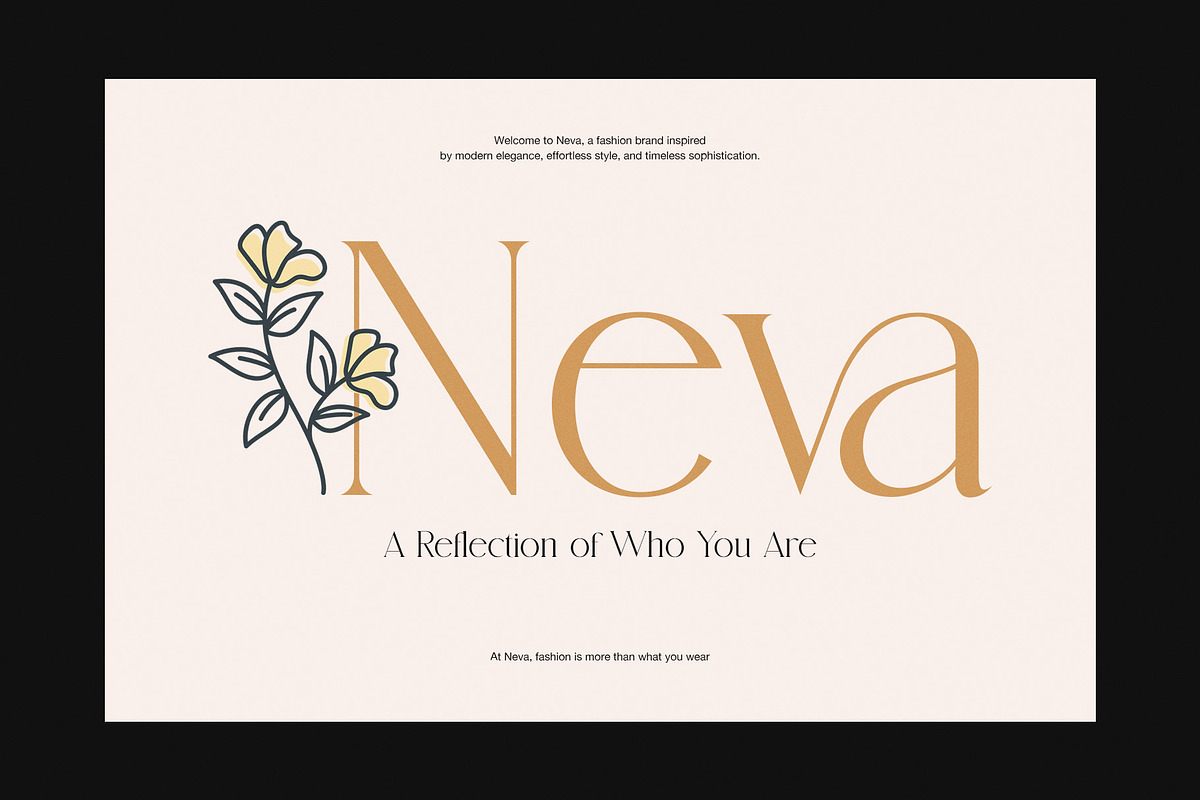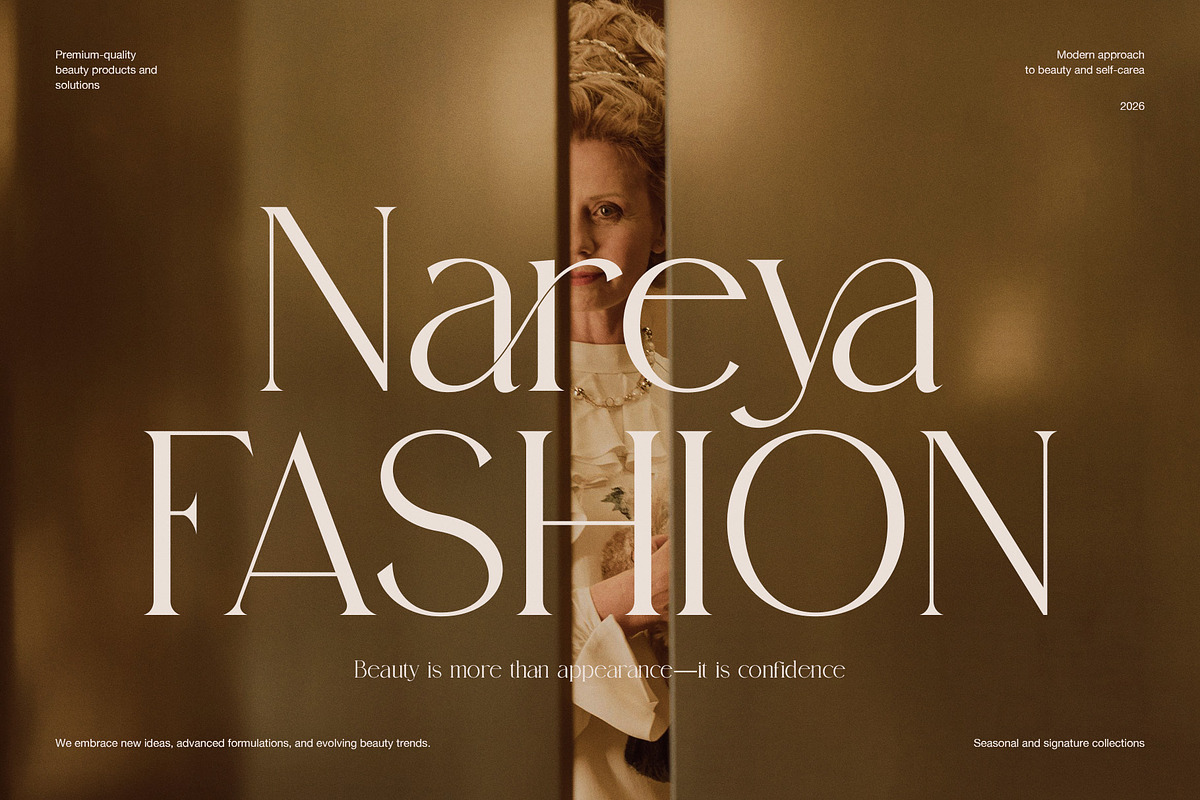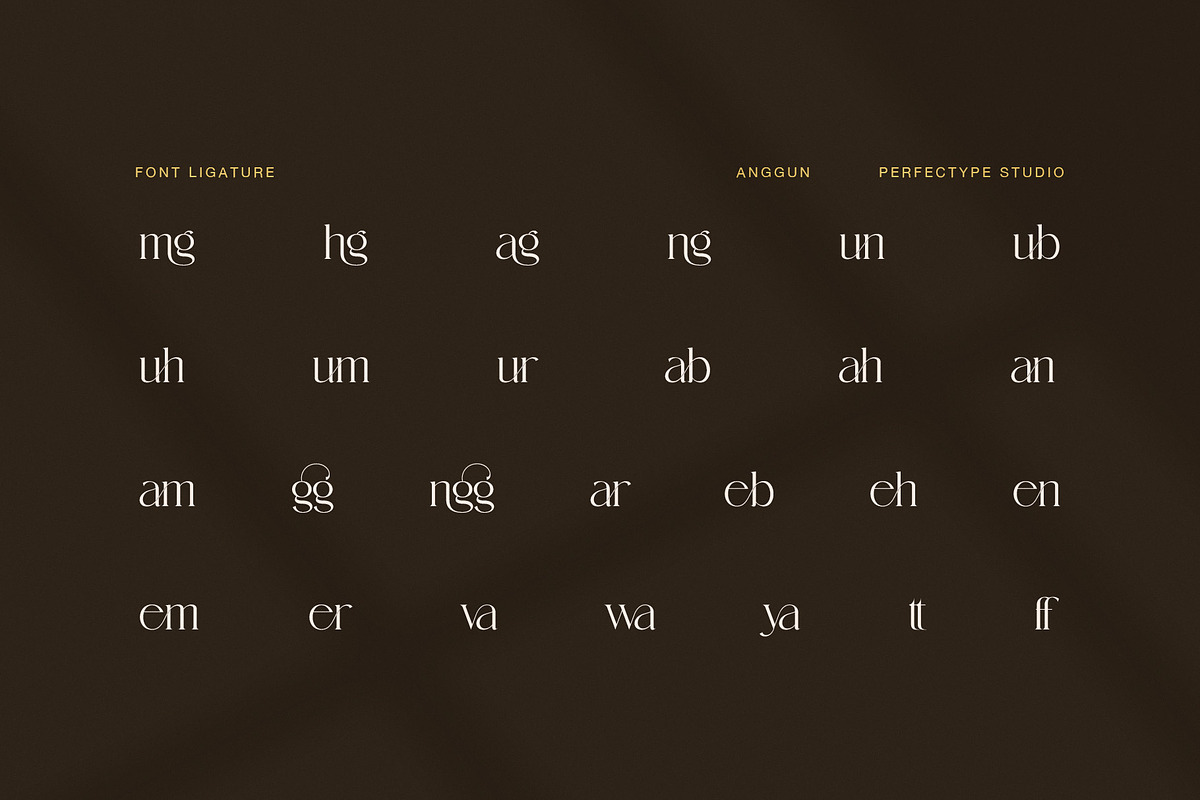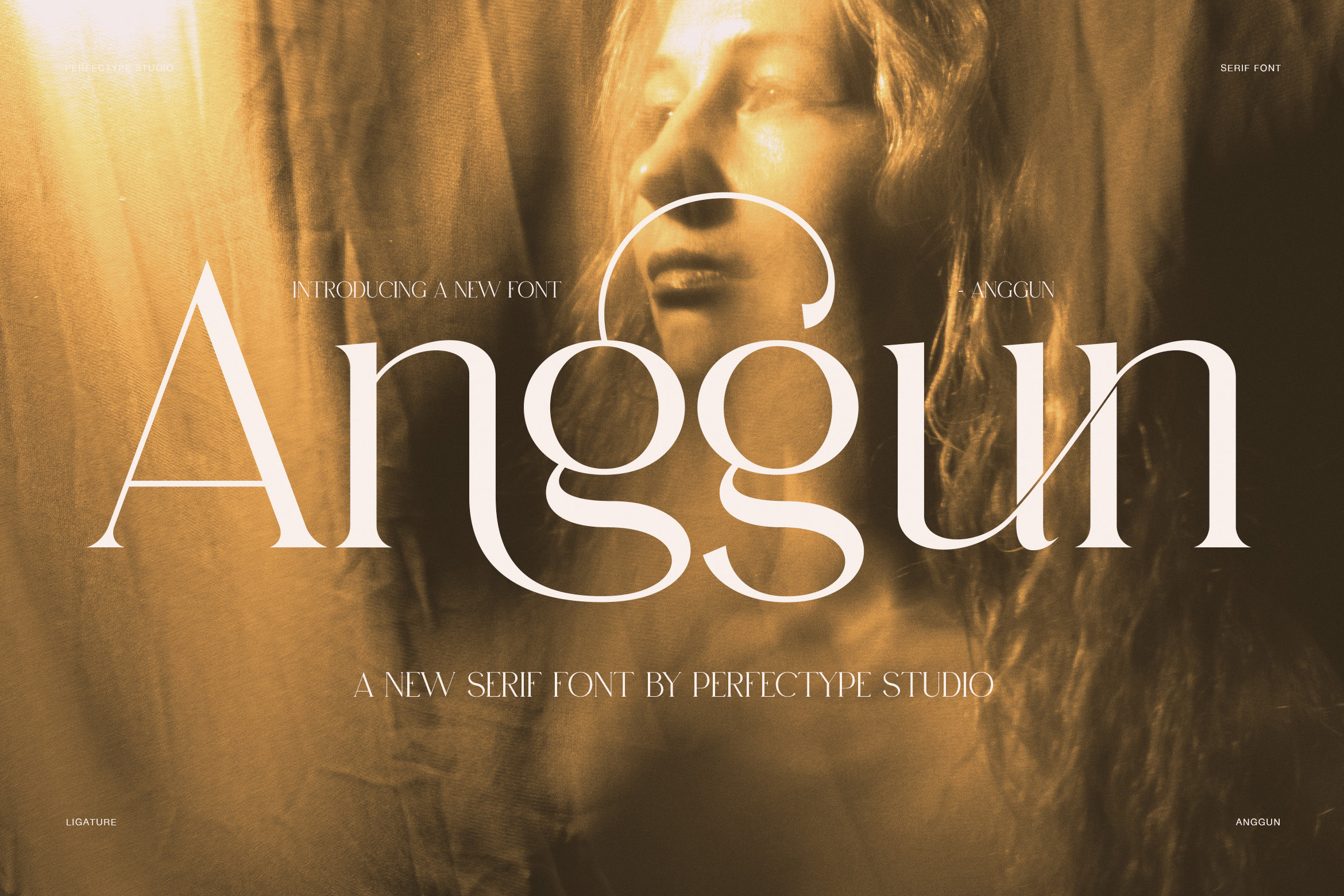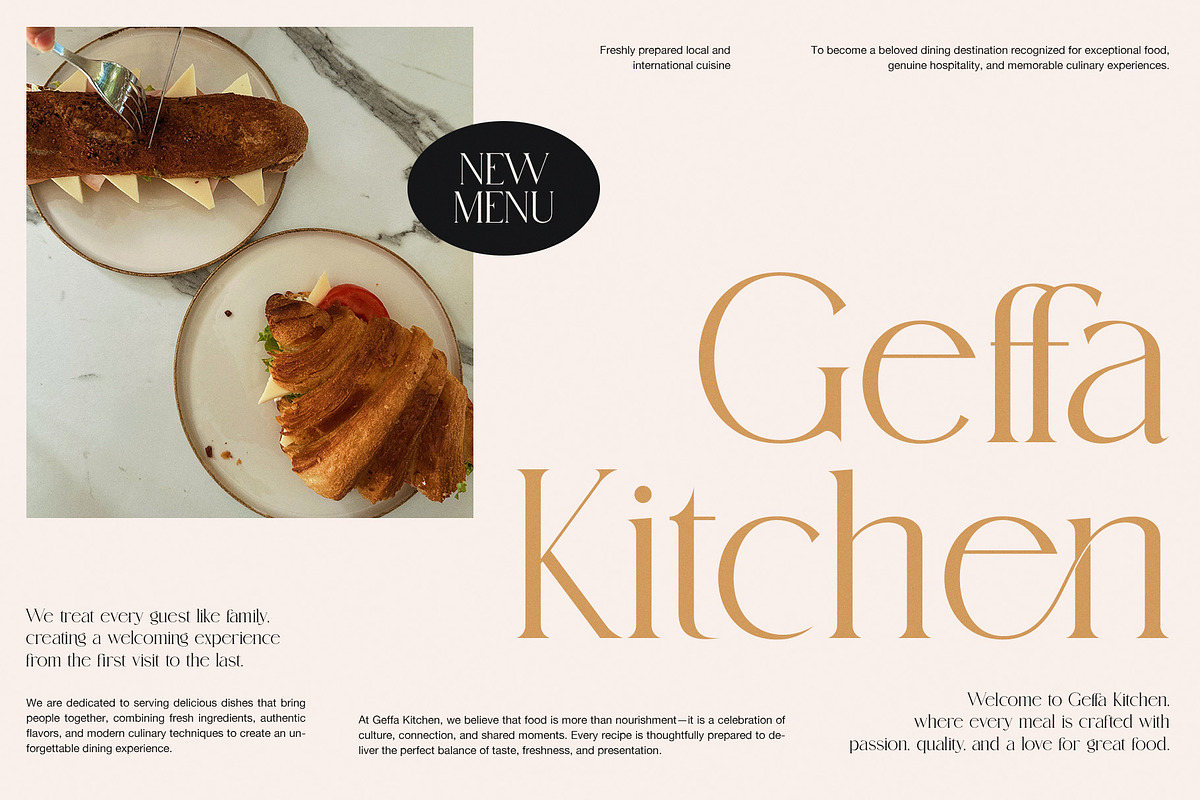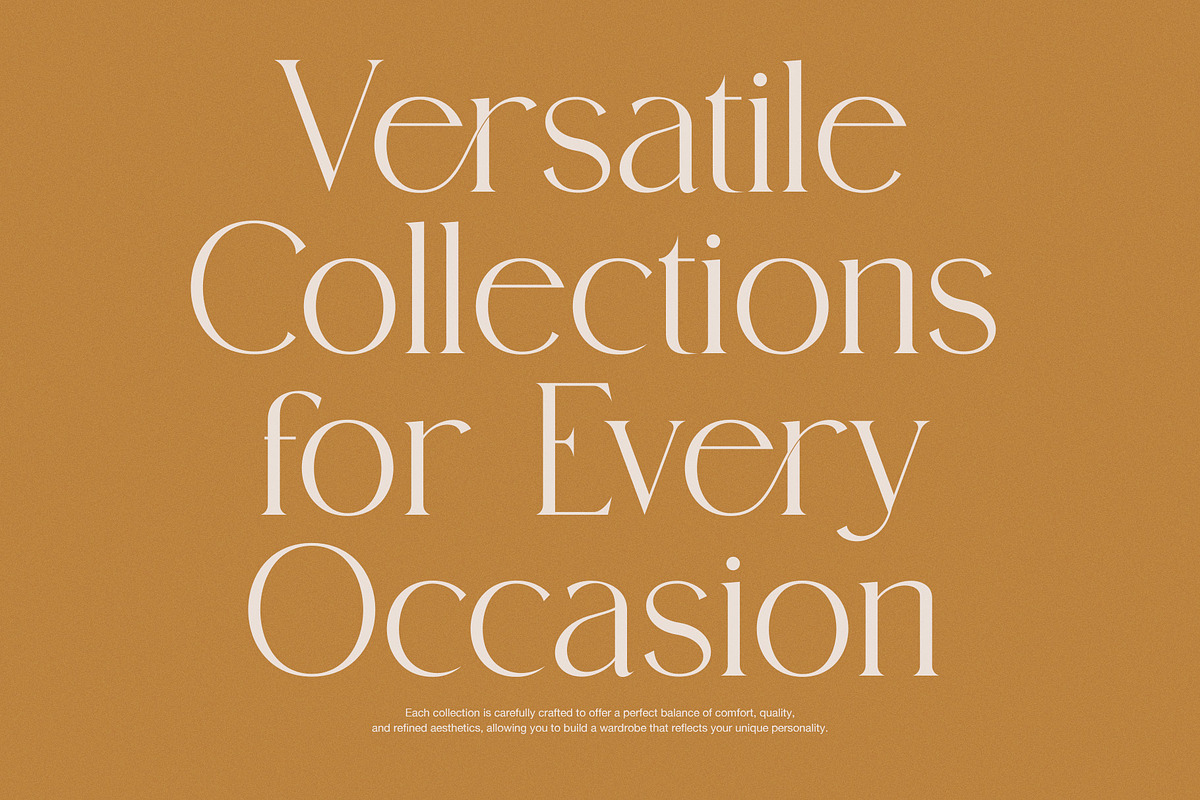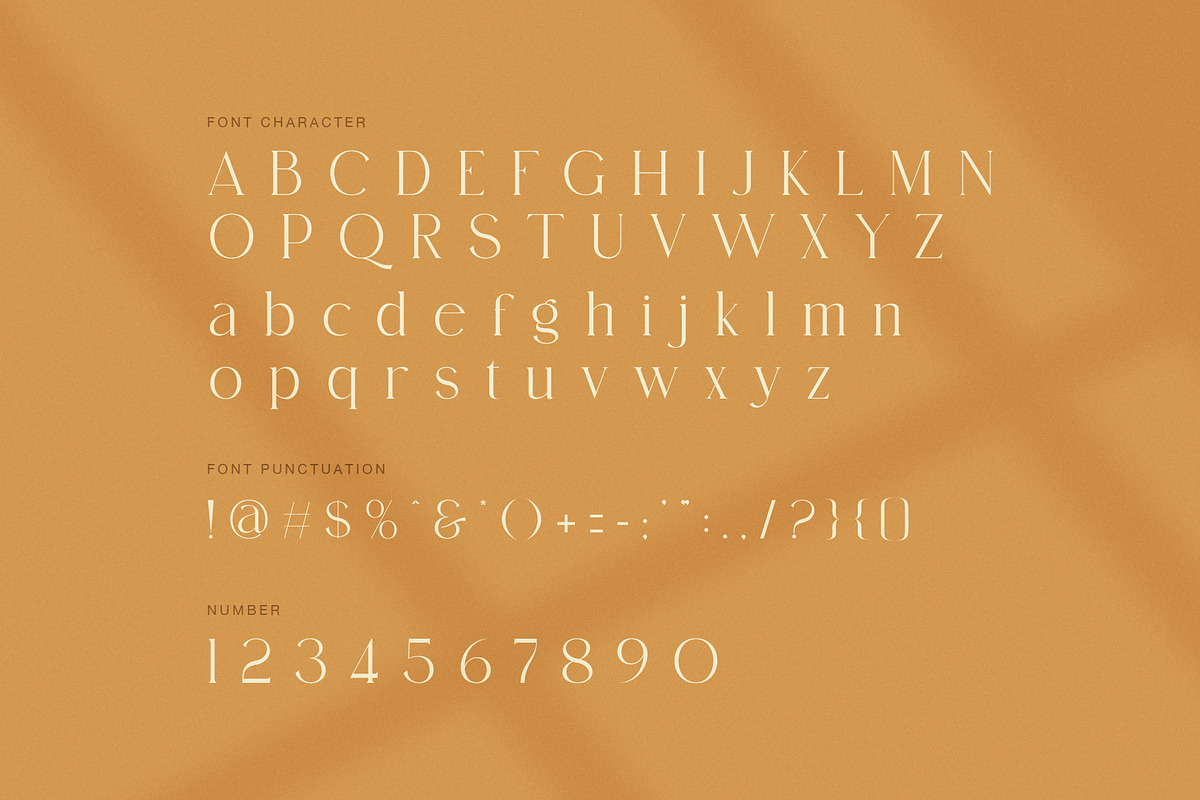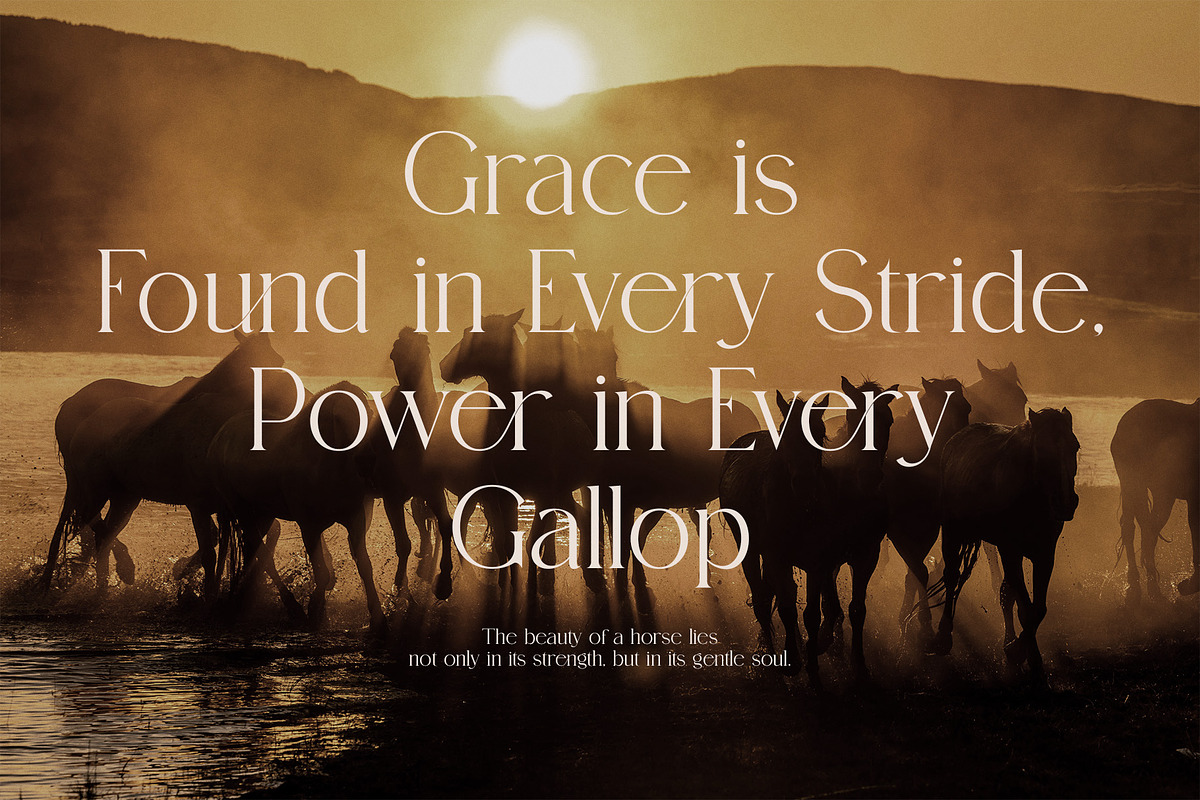
Anggun Elegant Fashion Serif Font
Anggun is an elegant fashion serif font designed for refined branding, editorial layouts, and modern luxury projects. With its high contrast, slender hairlines, and graceful curves, it brings a polished look to both large headlines and stylish display text.
Inspired by contemporary fashion typography, Anggun balances classic serif details with a clean and expressive shape. The tall letterforms create a strong visual presence, while the delicate strokes add an airy and sophisticated touch. Therefore, it is especially effective when typography needs to feel premium without becoming overly formal.
Refined Style for Modern Design
Anggun works beautifully for projects that need a fashionable and memorable identity. Moreover, its dramatic contrast makes large text instantly noticeable. At the same time, its elegant proportions keep the overall design balanced and clean.
The font is suitable for:
Fashion logos and luxury branding
Beauty and cosmetic packaging
Editorial magazines and lookbooks
Wedding invitations and stationery
Boutique and lifestyle branding
Restaurant menus and premium dining projects
Jewelry and perfume campaigns
Social media graphics and advertisements
Product packaging and labels
Elegant website headlines
Distinctive Ligatures
In addition, Anggun includes a collection of stylish font ligatures that create smoother and more artistic letter combinations. These alternate connections help selected words feel more custom and carefully crafted. As a result, designers can add extra character to logos, headlines, invitations, and brand presentations.
The uppercase alphabet offers an elegant statement style, while the lowercase letters provide a softer rhythm for supporting text. Numbers and punctuation are also included, making the font practical for a wide range of visual projects.
Elegant Typography for Premium Projects
Whether you are creating a fashion identity, beauty campaign, editorial spread, or luxury invitation, Anggun adds a sophisticated finish. Furthermore, its high-contrast structure performs particularly well at large sizes, where its fine details and sharp serif forms can be fully appreciated.
Overall, Anggun is a versatile choice for designers seeking an elegant fashion serif font with a modern editorial personality, distinctive ligatures, and a luxurious visual tone.